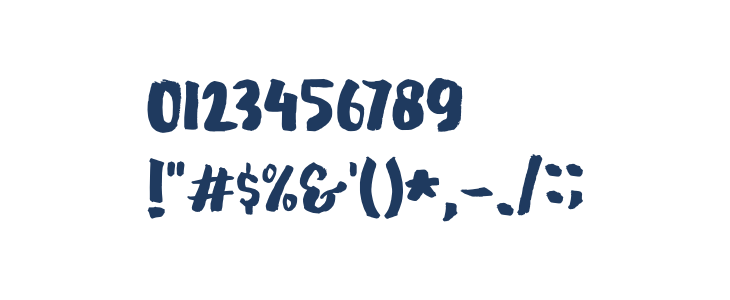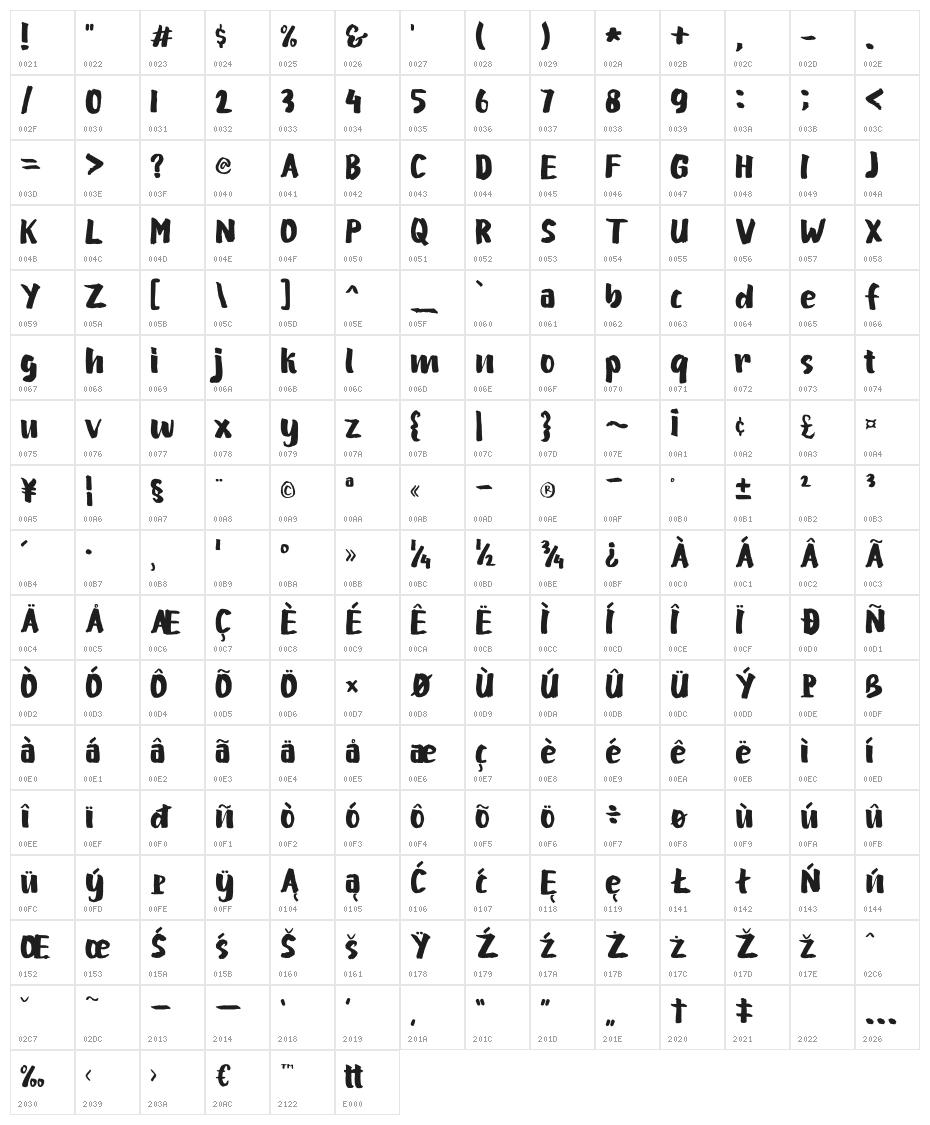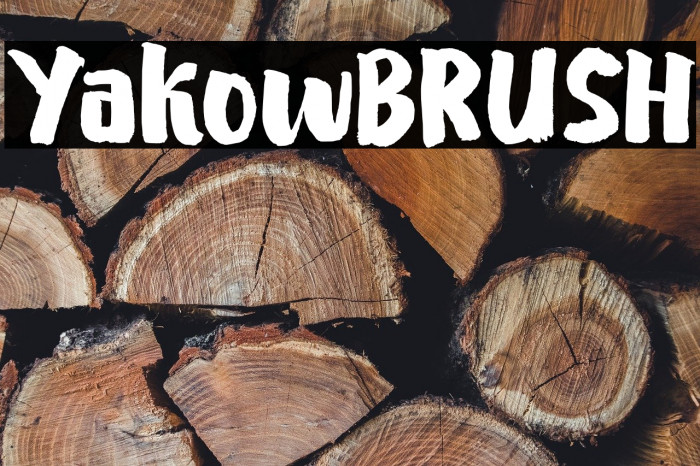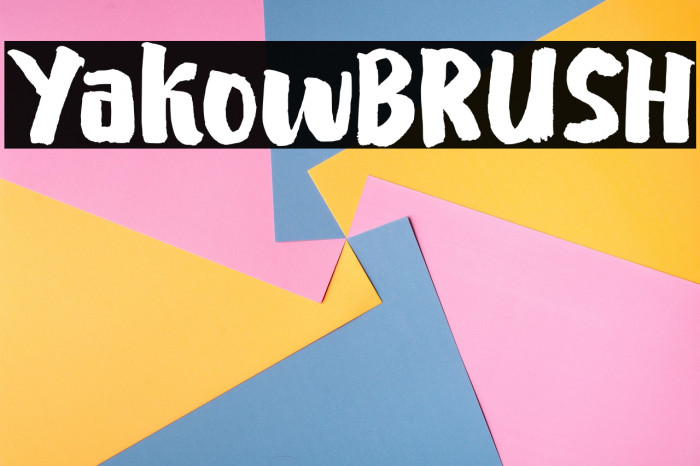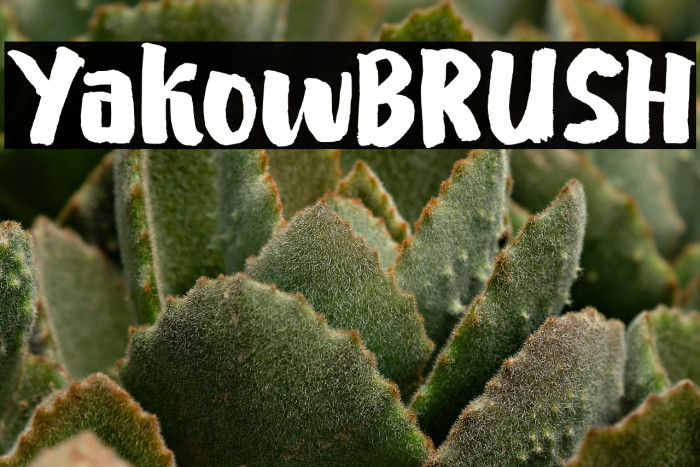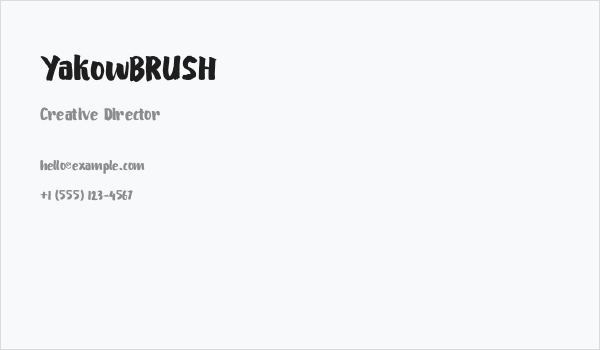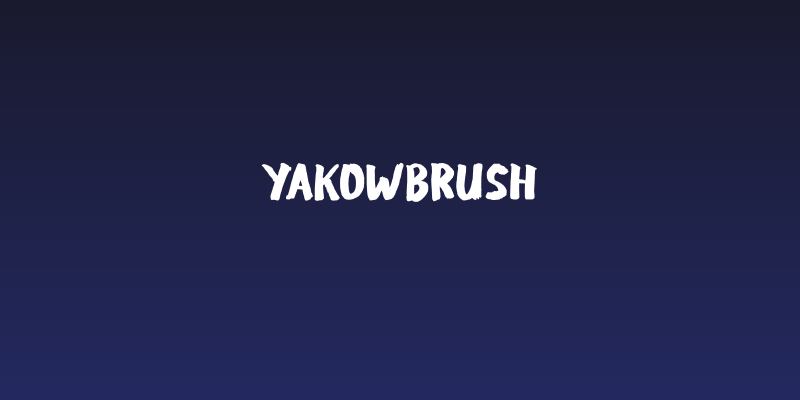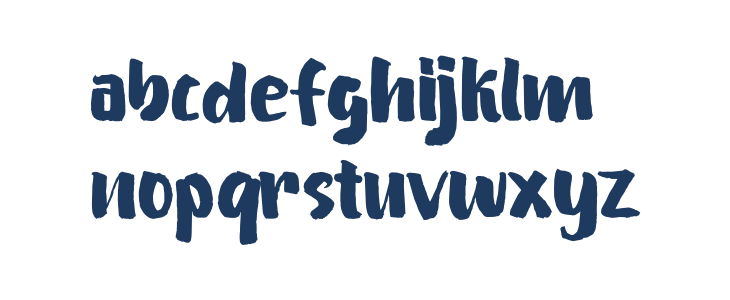
YakowBRUSH Font
YakowBRUSH Description
This bold and expressive font features a brush-like texture that gives it a dynamic and energetic appearance. The strokes are thick and uneven, mimicking the natural flow of hand-painted lettering. Each character has a unique, handcrafted feel, making it ideal for projects that require a personal touch. The uppercase and lowercase letters maintain a consistent style, with rounded edges and varying stroke widths that add to the font's lively character. The numbers and special characters are equally bold and maintain the same artistic flair, ensuring a cohesive look across all text elements.
Proposed ProjectsIdeal for posters, branding, packaging, and any design needing a bold, artistic touch.